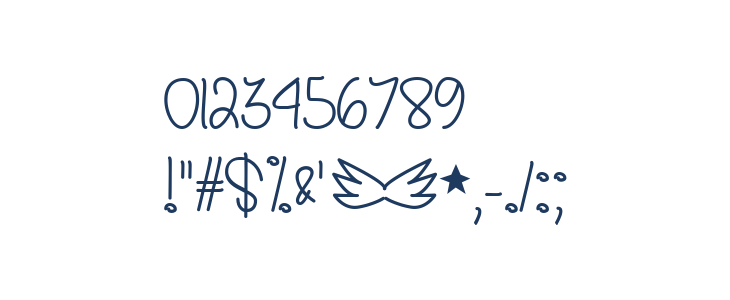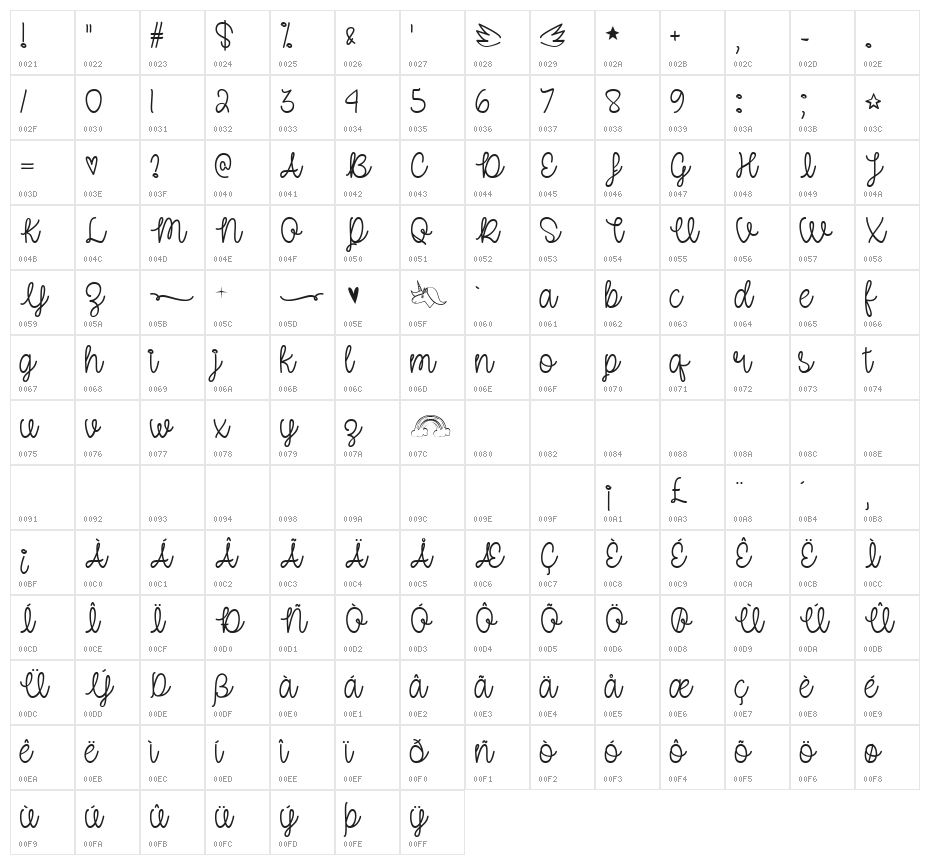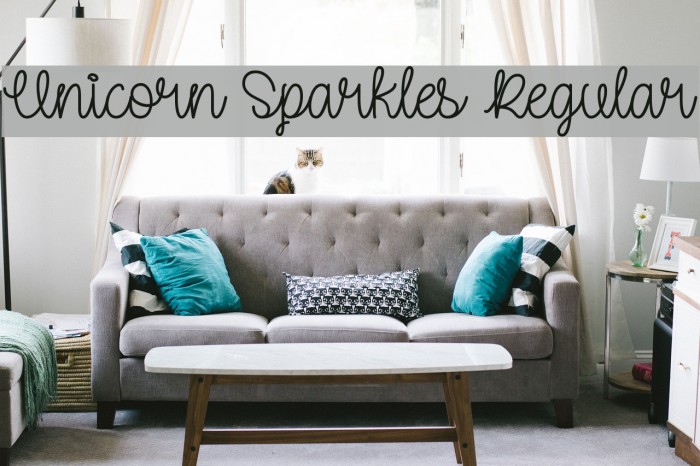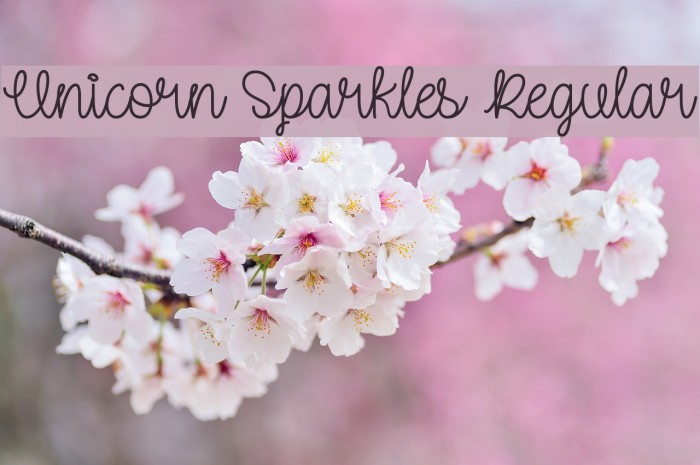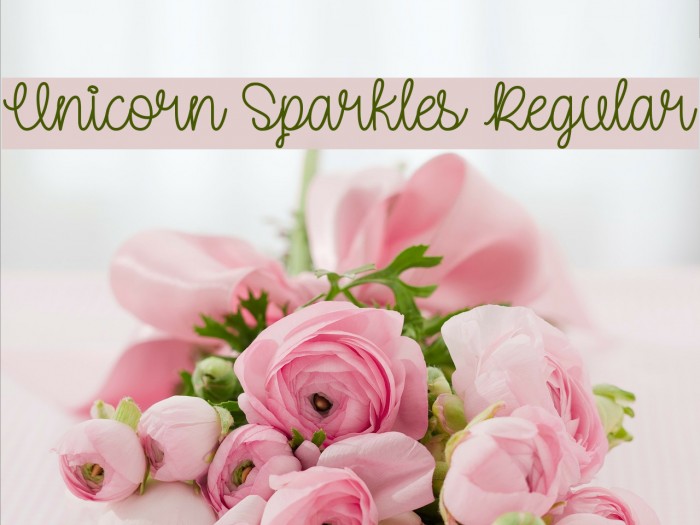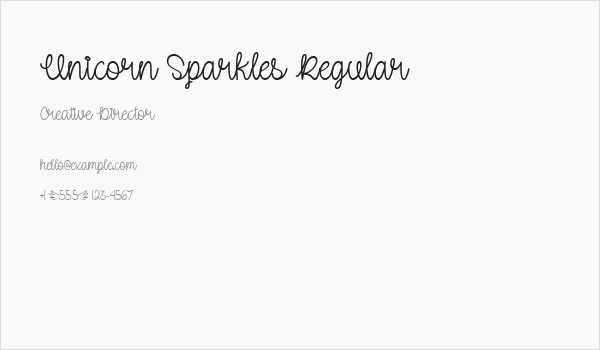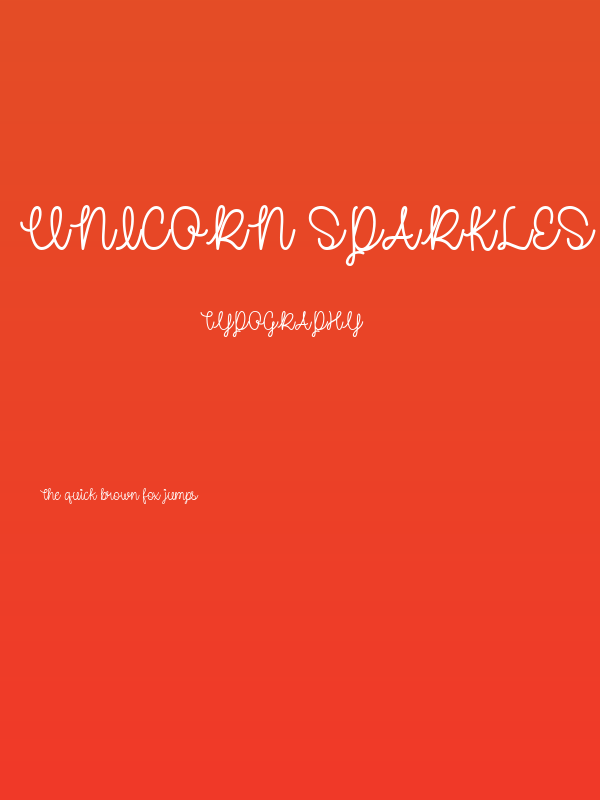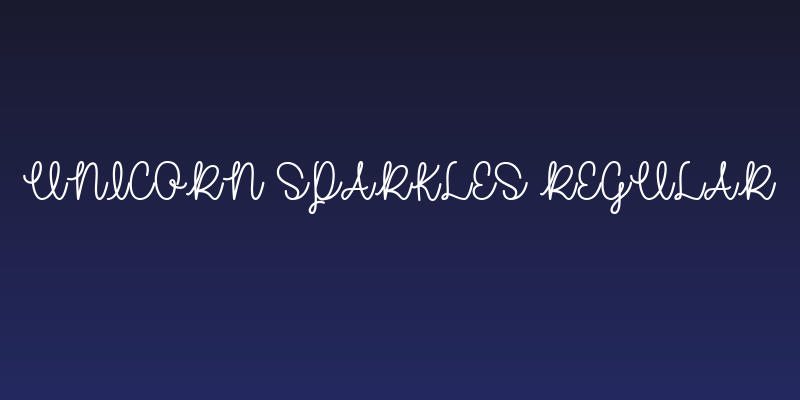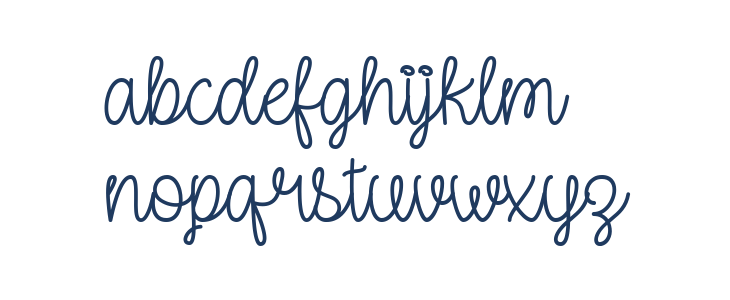
Unicorn Sparkles Regular Font
Unicorn Sparkles Regular Description
This whimsical and playful font features a handwritten style with a smooth, flowing script. The characters are elegantly connected, giving a sense of continuity and fluidity. The uppercase letters are slightly taller and more pronounced, while the lowercase letters maintain a consistent baseline, enhancing readability. Numbers are rounded and maintain the playful aesthetic. Special characters include charming symbols like stars and wings, adding a magical touch. The overall design is light-hearted and perfect for projects that require a touch of fun and creativity.
| Proposed Projects | Ideal for children's book covers, playful branding, greeting cards, and whimsical invitations. |